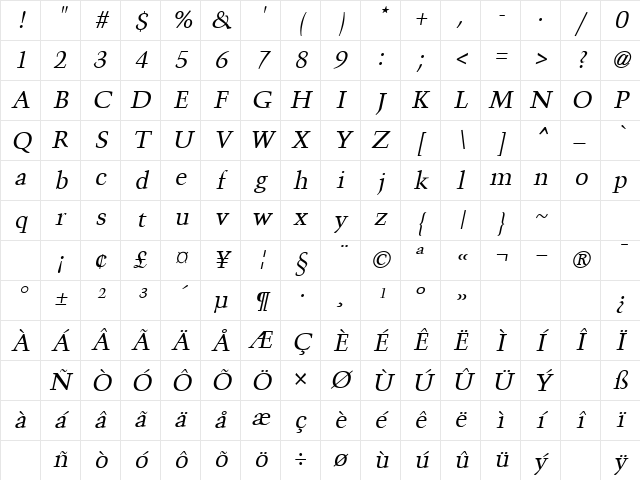
Toure Oblique
Toure Family
Toure Oblique
Design Context for Toure
Toure is a composed and adaptable typeface that performs quietly and consistently across a wide range of design contexts. The slanted form adds forward momentum and visual energy.
Pro Tip: Use Toure for emphasis, pull quotes, and subheadings where its slanted energy can add rhythm to the layout.